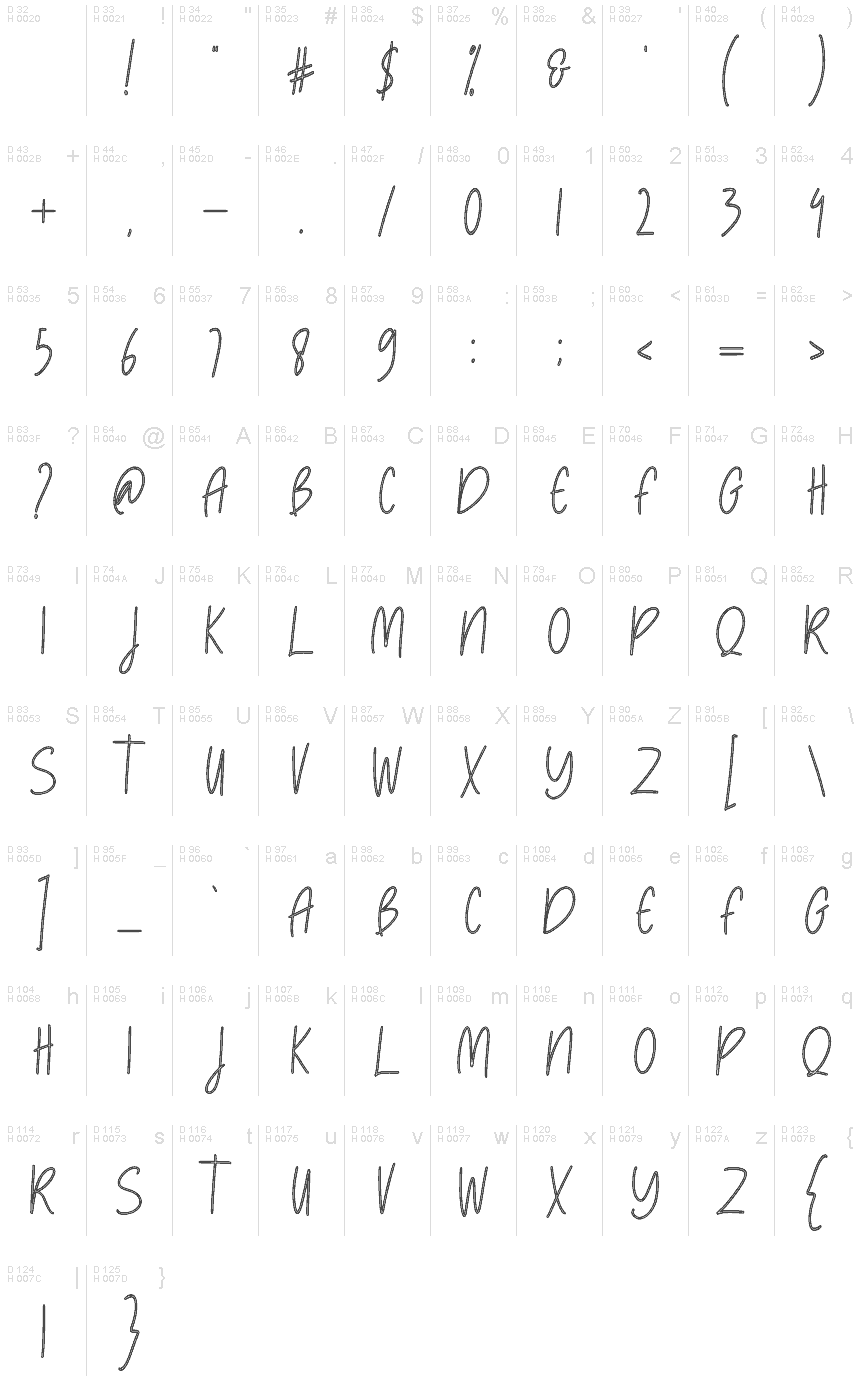
Reficy
Reficy font by Skiiller Studio is a free handwritten font that embodies a casual, approachable, and modern style. Its light and condensed form brings together a simple elegance with a hand-drawn feel, making it perfect for adding personality.
Use Reficy for logo designs, brand typographies, posters, packaging products or labels. Inviting invitations such as wedding cards can also benefit from its authenticity just as opening titles in movies and series.